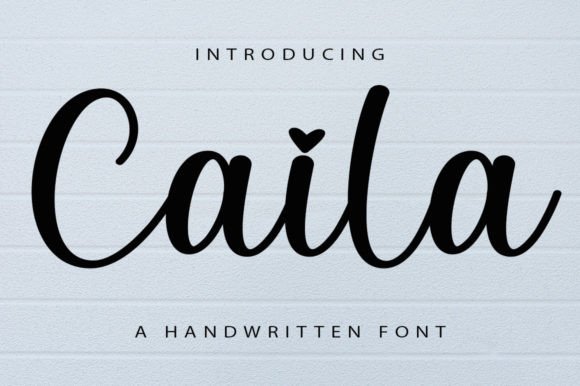
Step into the enchanting world of Caila Font, a breathtaking script font family designed to captivate and allure. Its graceful curves and effortless flow evoke a sense of elegance and sophistication, making it the perfect choice for your most cherished creative endeavors. Caila is not merely a font; it's an artistic masterpiece that transforms words into works of art.
With its sweeping strokes and delicate flourishes, Caila Font dances across the page, leaving a trail of beauty in its wake. Its organic, handwritten style exudes a personal touch, inviting readers to connect with your message on a deeper level. Whether you're crafting book titles, designing wedding invitations, or creating eye-catching logos, Caila Font will elevate your projects to new heights of creativity.
Crafted by the talented artisans at Wahyu Studio, Caila Font is a testament to the power of typography. Its PUA encoding allows you to unleash your imagination and effortlessly access a world of glyphs and swashes, adding an extra layer of depth and dimension to your designs. Whether you're a seasoned designer or just starting your creative journey, Caila Font is the perfect companion for bringing your artistic visions to life.
Immerse yourself in the exquisite beauty of Caila Font and discover a world of endless possibilities. Its elegant lines and captivating charm will transform your creative projects into masterpieces that leave a lasting impression. Embrace the allure of Caila Font and unlock the gateway to a world of creative enchantment.